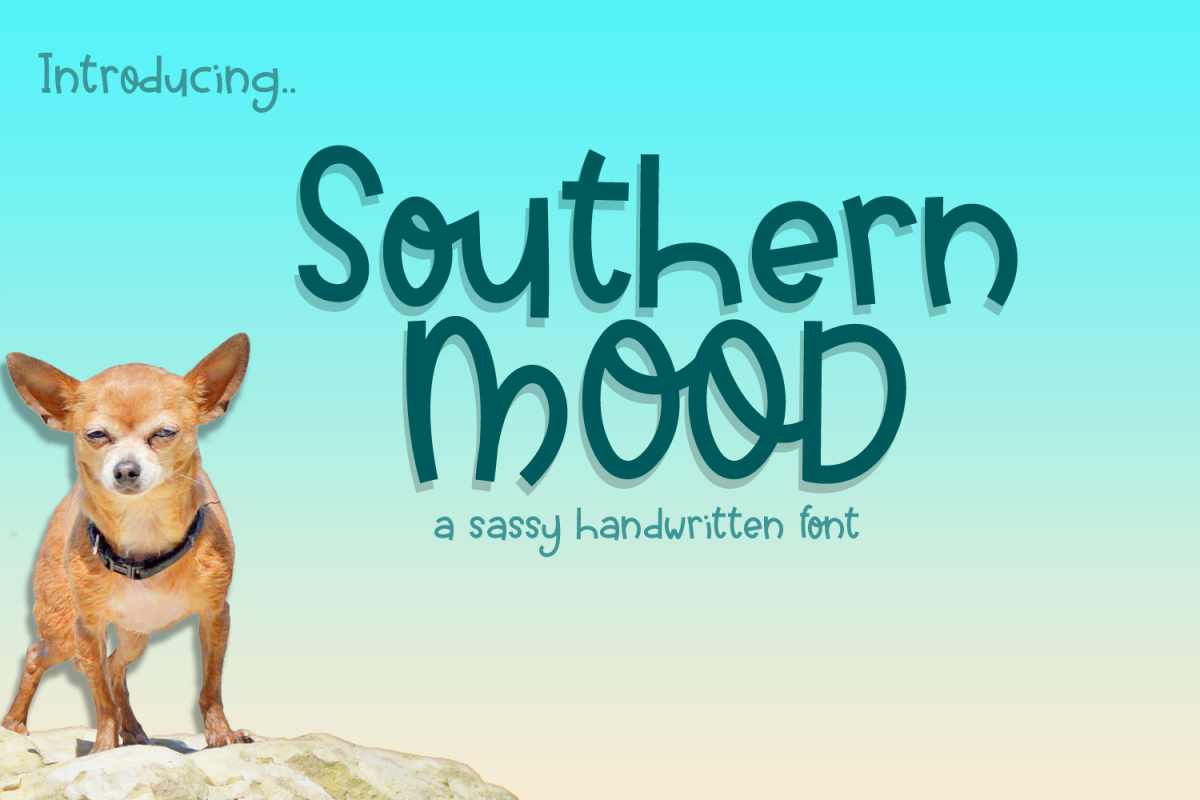
Southern Mood - a sassy handwritten font
Southern Mood
Southern Mood is a bold handwritten font.
The font includes full alphabet letters, accent alphabet, numbers and symbols, punctuation and ligatures.
This font is great for logos, t-shirt designs, decals, and more!